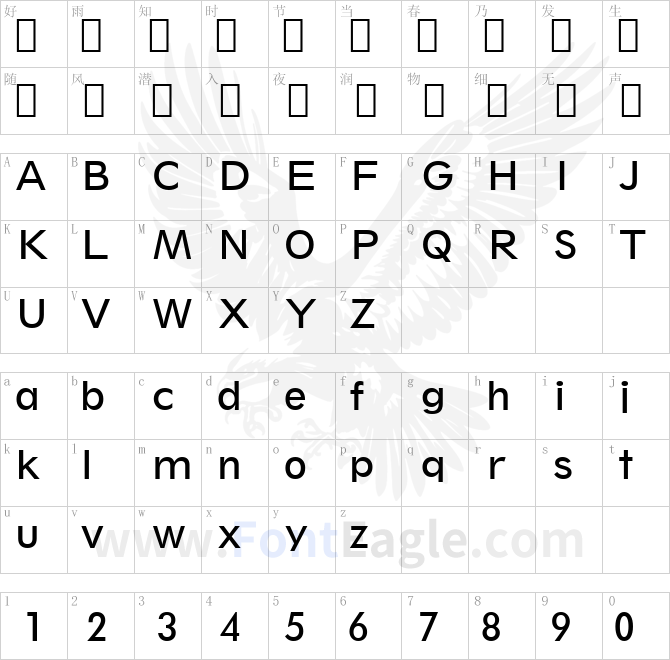
- Font name:Geometr212 Bk BT
- Font Subfamily:Book
- Font Subfamily ID:Geometric 212 Book
- Font Full Name:Geometric 212 Book BT
- Font Version:mfgpctt-v1.52 Monday, January 25, 1993 4:35:31 pm (EST)
- Postscript:Geometric212BT-Book